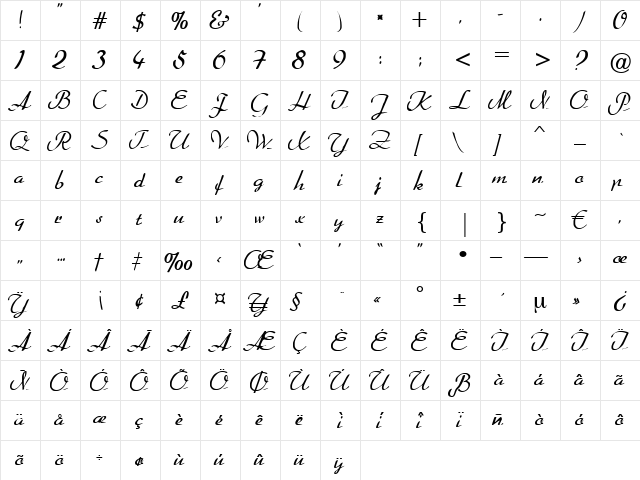
Schulmeister Regular
Design Context for Schulmeister Typeface
Schulmeister is a composed and adaptable typeface that performs quietly and consistently across a wide range of design contexts.